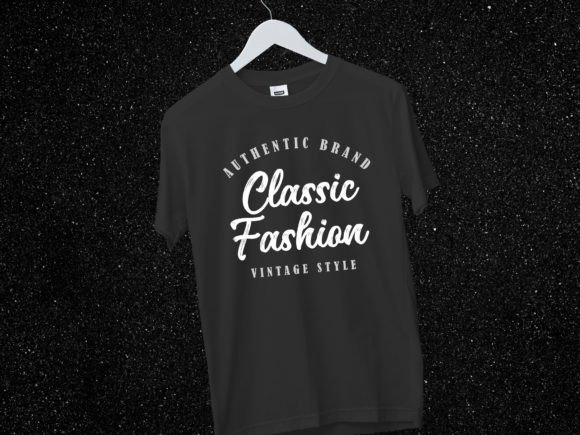
Authentic Font
Authentic is a bold, classic, elegant, cursive natural handwritten brush font. Authentic is a great way to add a personal touch to your designs. Whether you want to create a logo, a poster, a greeting card, or a social media post, Authentic handwritten brush font can make your text stand out with its unique and expressive style. Authentic is inspired by the look and feel of writing with a procreate brush style. Authentic is easy to use and compatible with most design software. Try them out today and see how Authentic handwritten brush font can transform your projects.